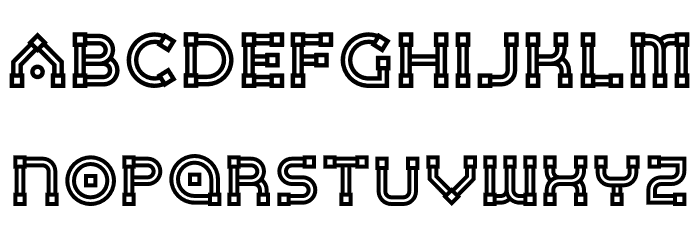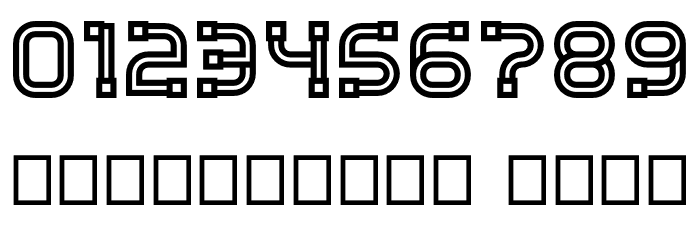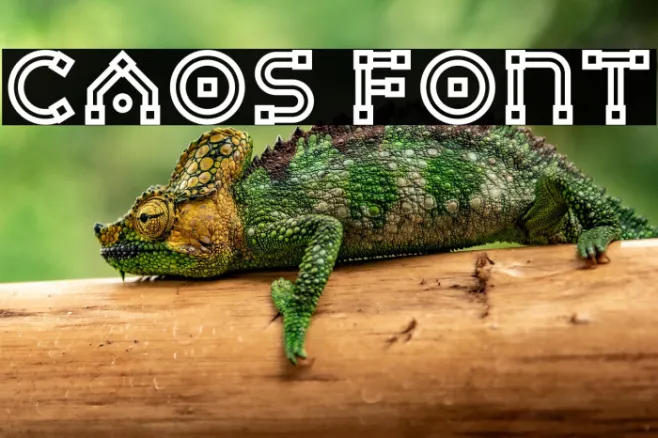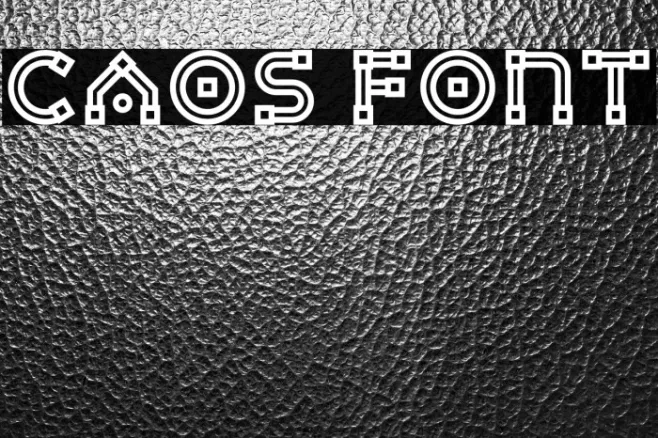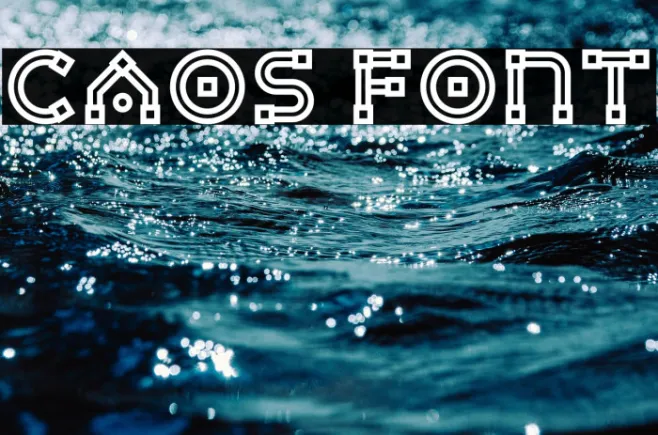
Caos Font
This font features a unique, geometric design with a futuristic and industrial feel. Each character is constructed with bold, angular lines and circular cutouts, creating a striking and modern appearance. The uppercase and lowercase letters maintain a consistent style, emphasizing symmetry and precision. The numbers and special characters follow the same design principles, ensuring a cohesive look across all elements. This font's distinctive style makes it ideal for projects that require a bold and eye-catching typeface.
A geometric, futuristic font with bold lines and circular cutouts.
- Font: Caos
- Proposed Projects: Ideal for tech-themed designs, futuristic branding, posters, and digital artwork.
- Overall Style: Futuristic, Industrial